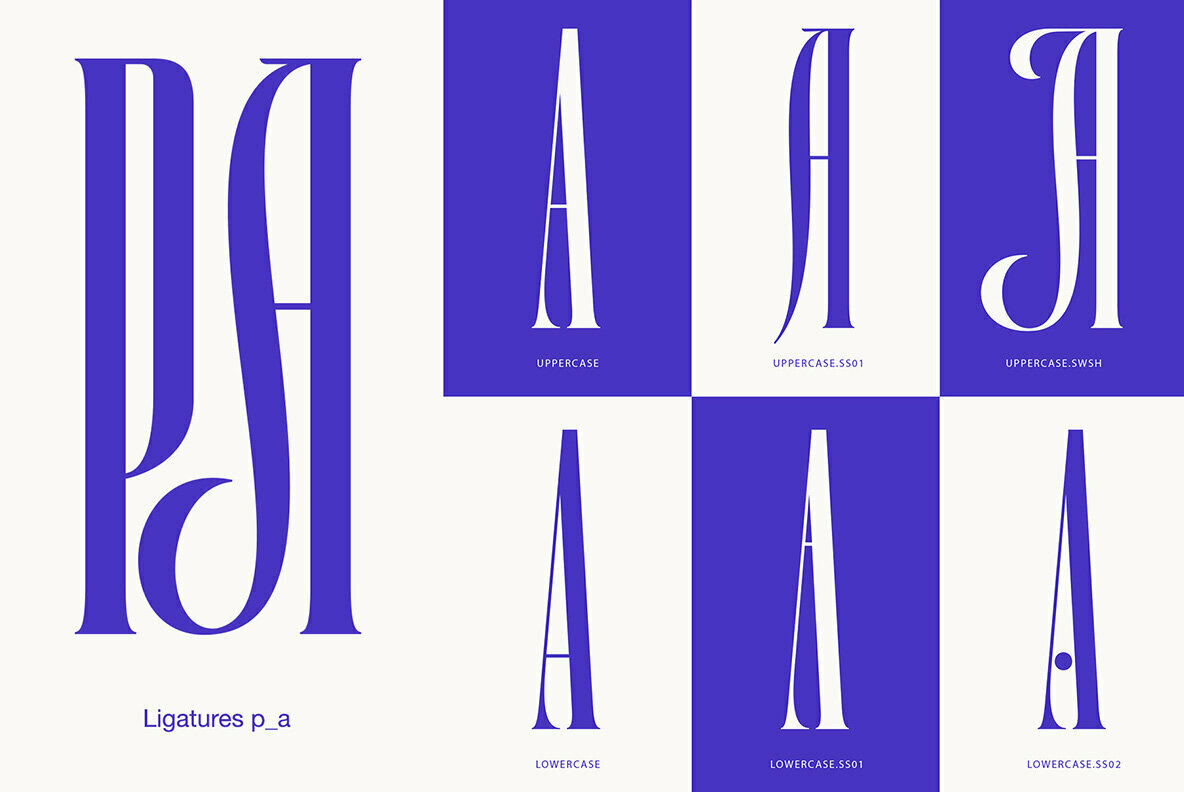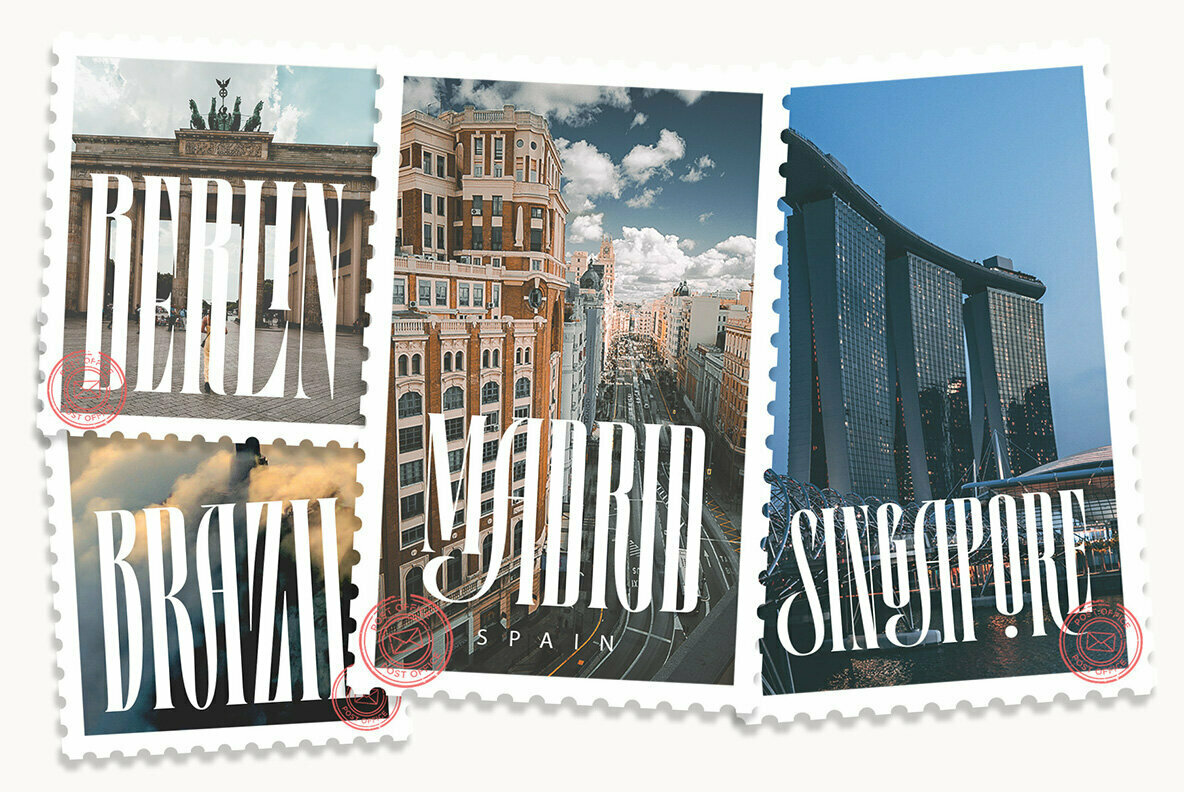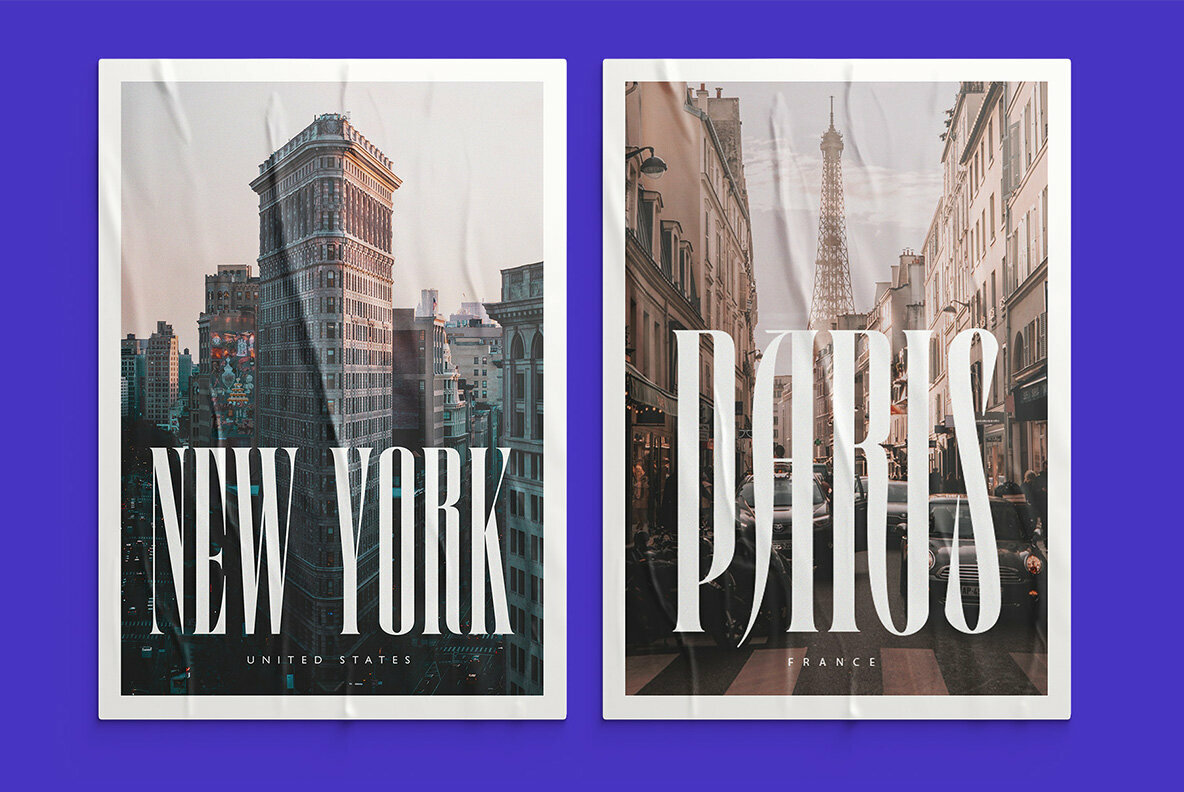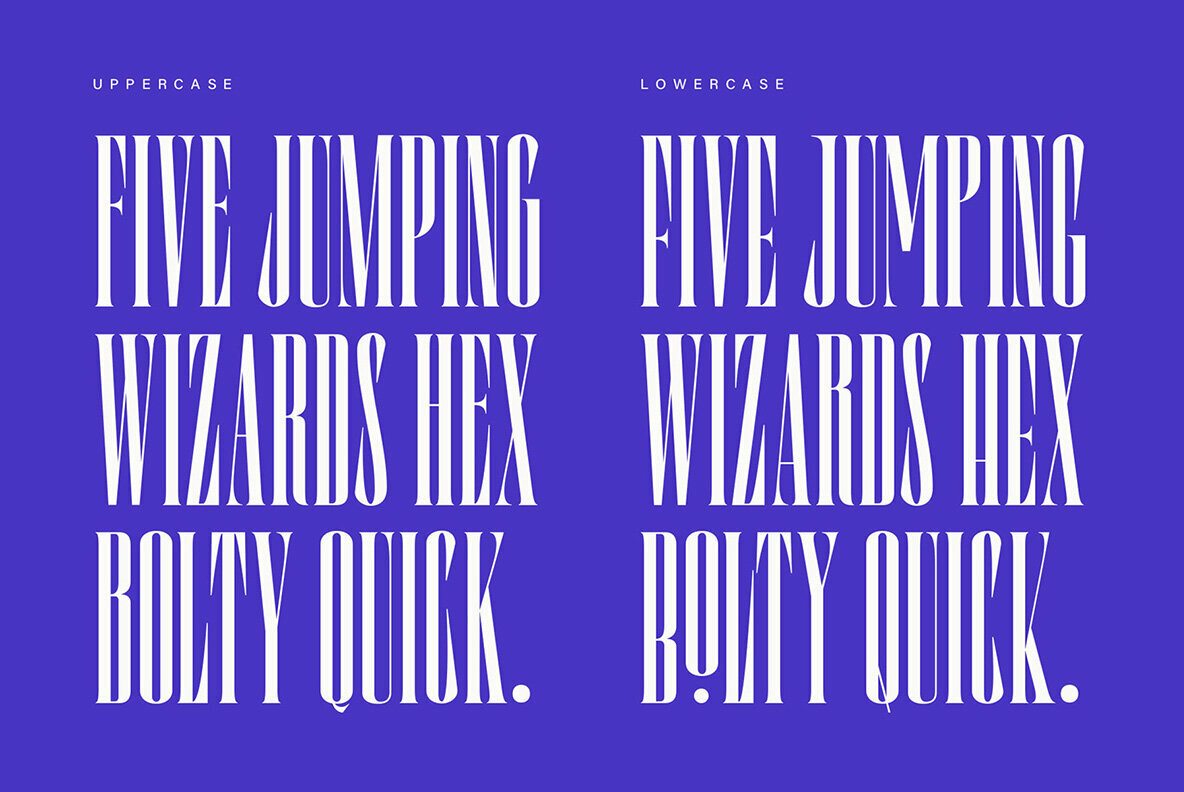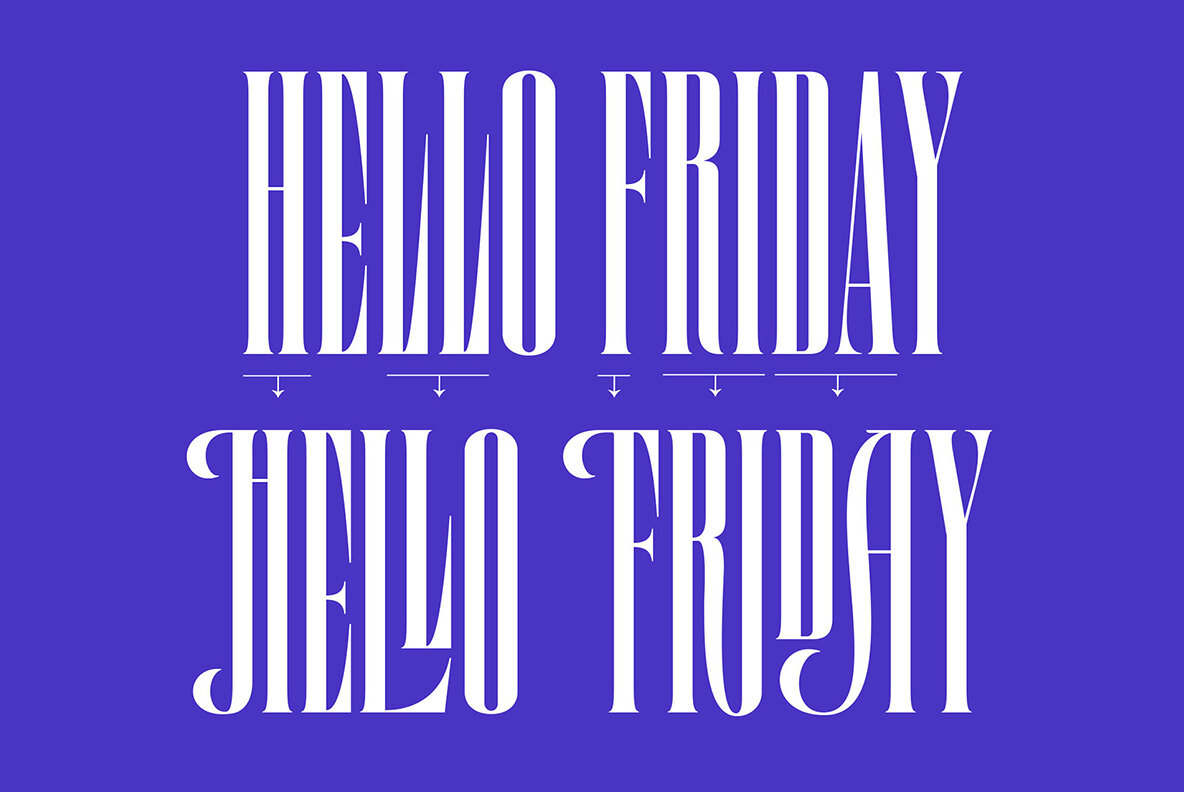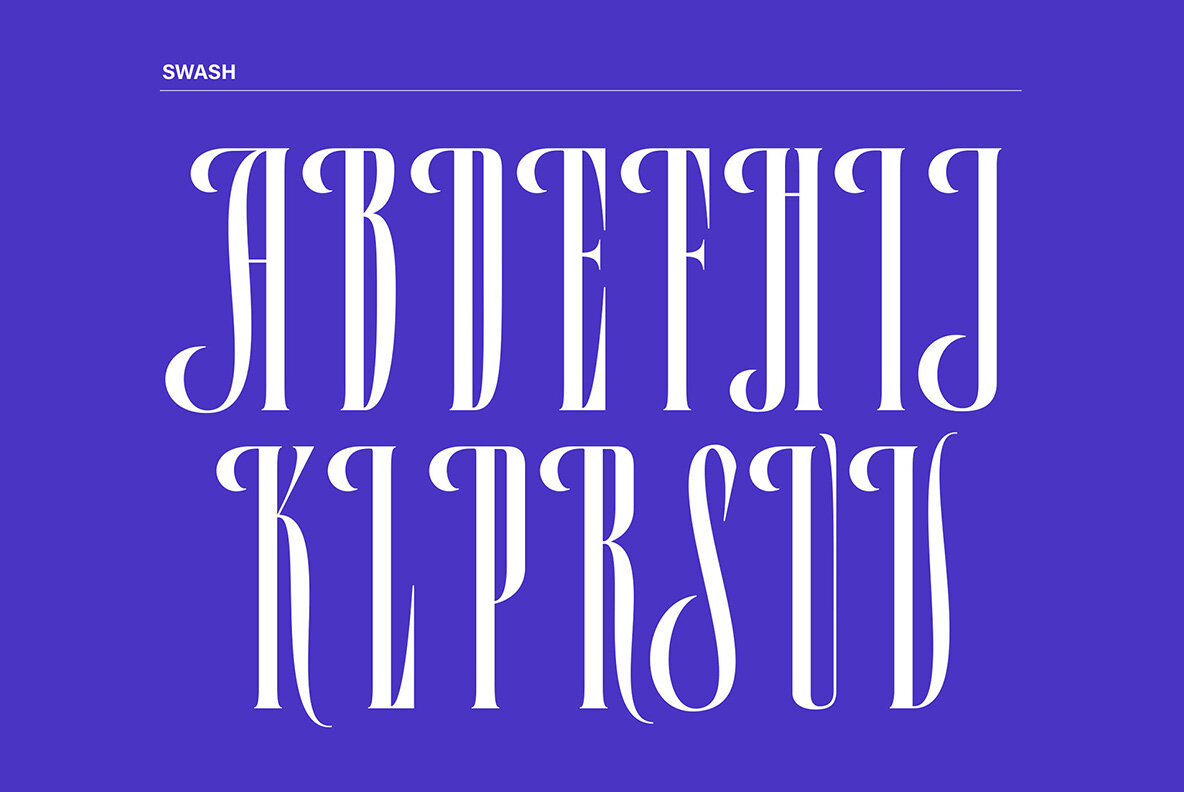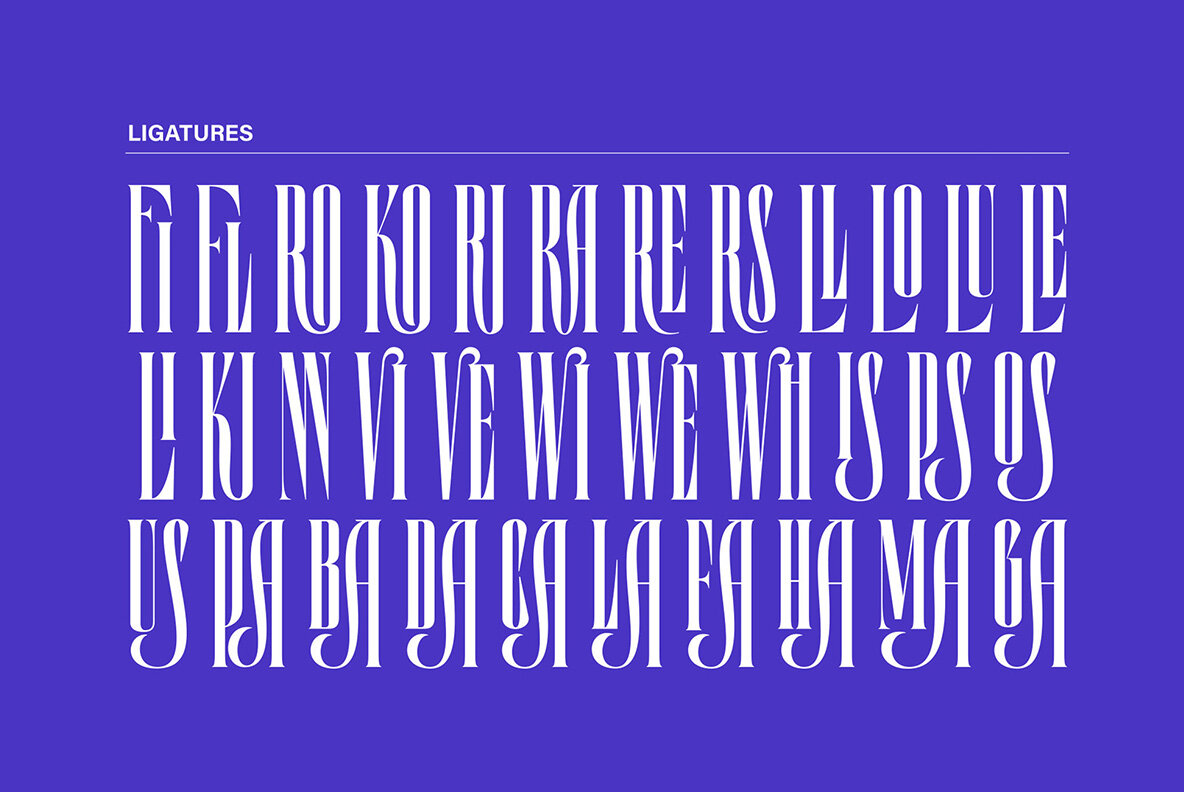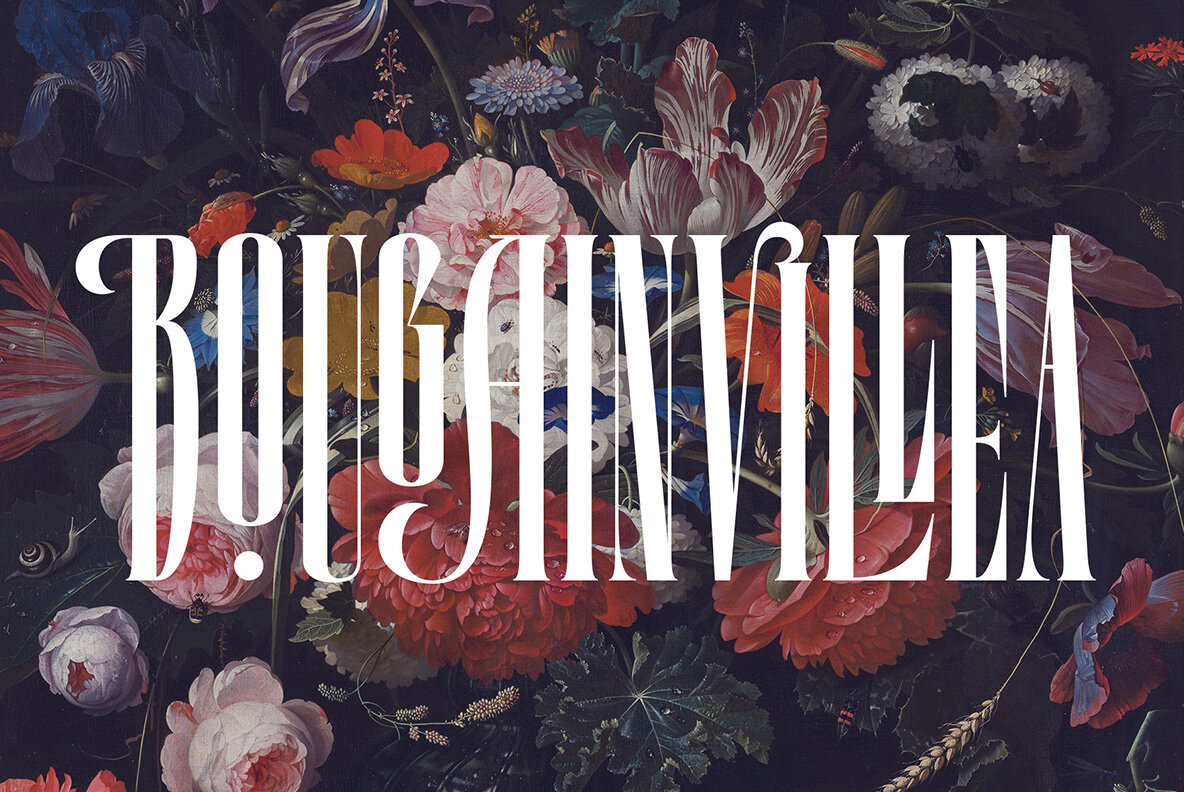
Lorida Font
Lorida Condensed
Lorida - Condensed Display is an Elegant Condensed serif with eye-catching ligatures for each letter combination. it is based on a compact solid font, by combining various styles. Perfect for Logos, greeting cards, quotes, posters, branding, business cards, postcards, movie titles, blog headers, art quotes, typography, magazines and more.
FEATURES:
- All Alternates
- Swash
- Standard Ligatures
- Discretionary Ligatures
- Stylistic Alternates
- Stylistic Set (01 - 02)
- Localized Forms
- Superscript
- Fractions
- Ordinals